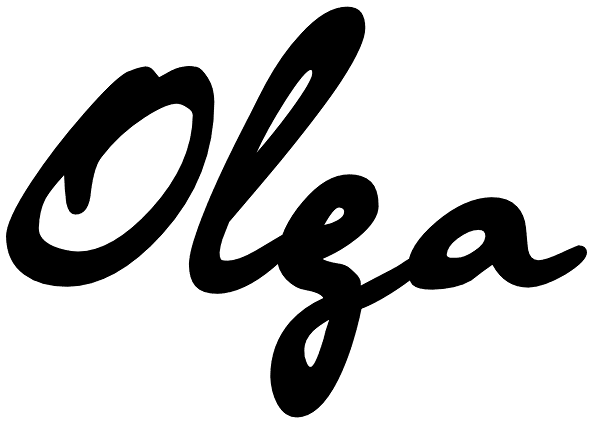
Olga
Based on informal pen handwriting. A set of Western and Central European characters was added in 2011 by Gennady Fridman. For use in advertising and display typography.
Olga Font